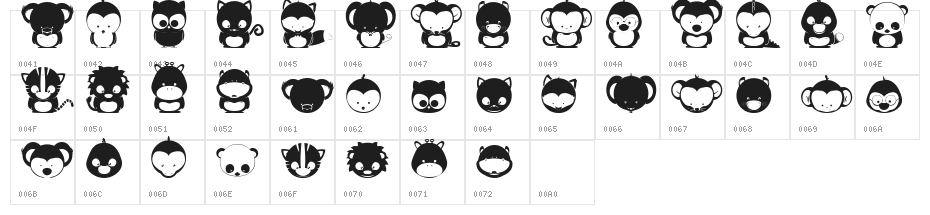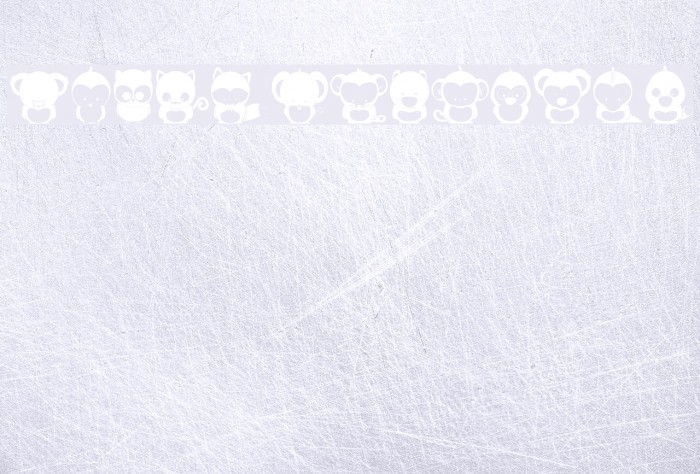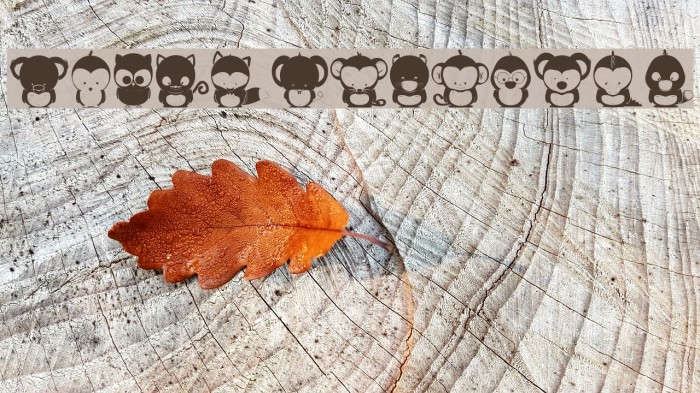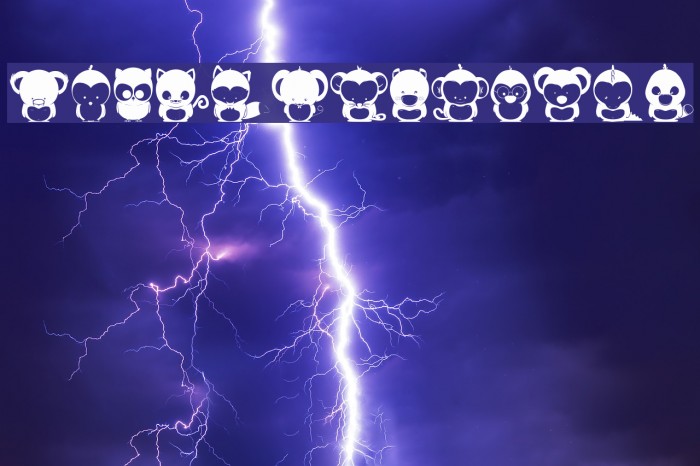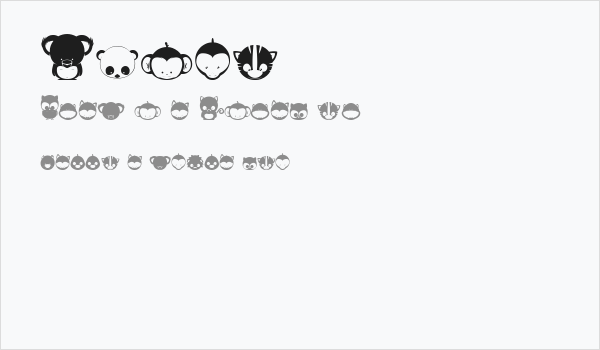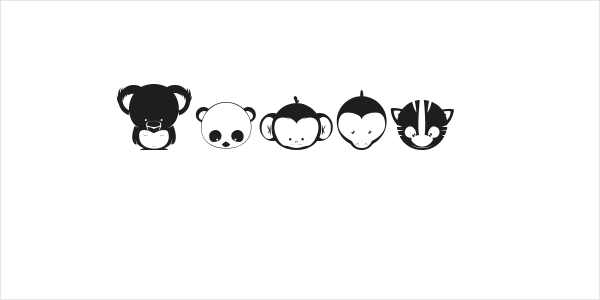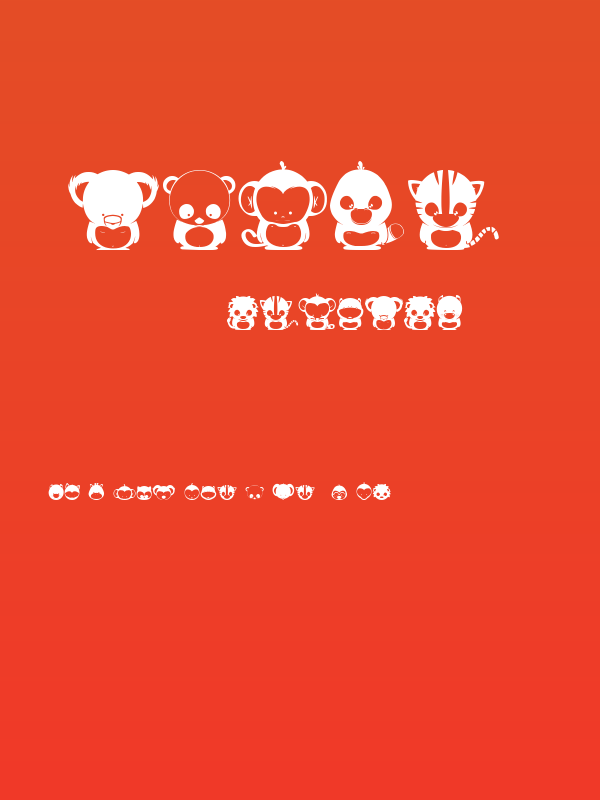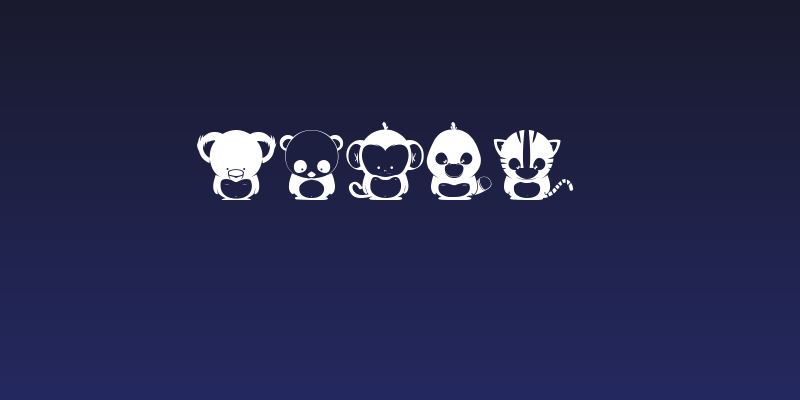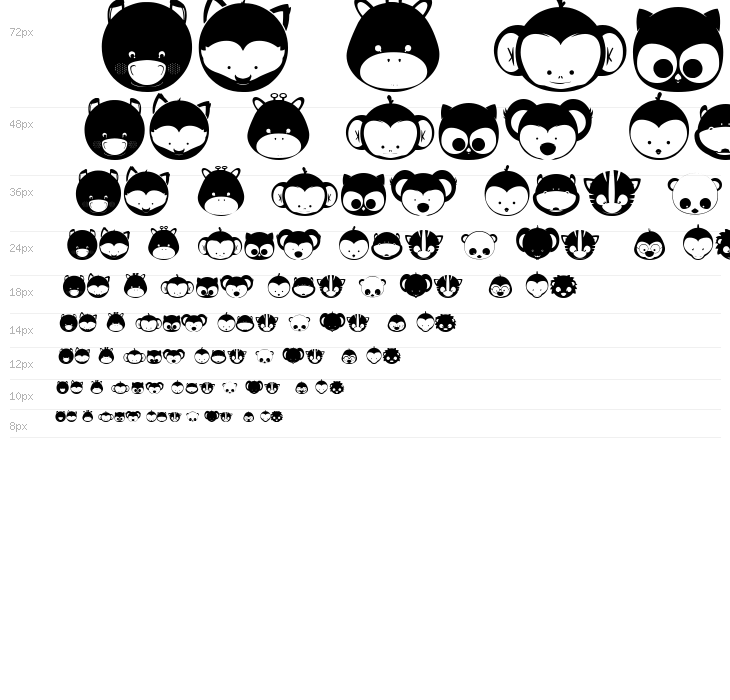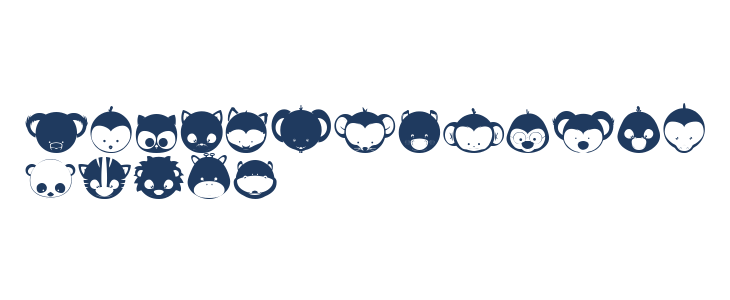
Animox Font
Animox Description
A decorative dingbat font featuring a variety of cute, cartoon-style animal faces and full-body characters, rendered in bold black and white with playful, rounded shapes and minimal detail.
| Overall Style | Decorative, Playful, Cute |
| Use Case | Icons, Decorative elements, Themed graphics |
| Proposed Projects | ChildrenΓ’β¬β’s books, educational materials, greeting cards, stickers, party invitations, playful branding. |